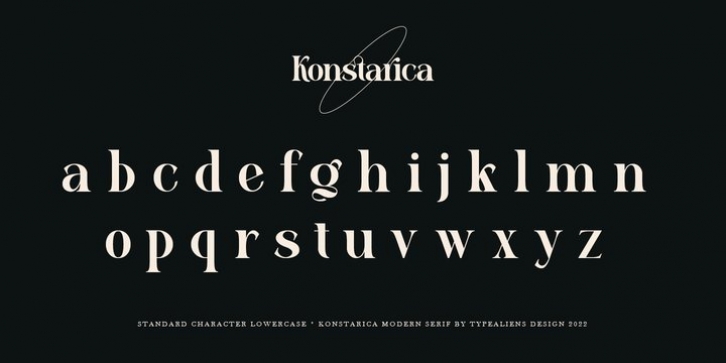
Konstarica Font Family was published by Ilhamtaro. Konstarica contains 1 styles and family package options.
KONSTARICA is a serif font with some unique ligatures. It is suitable for branding and can be used for fonts on social media. In addition, it will also be suitable for headline fonts.